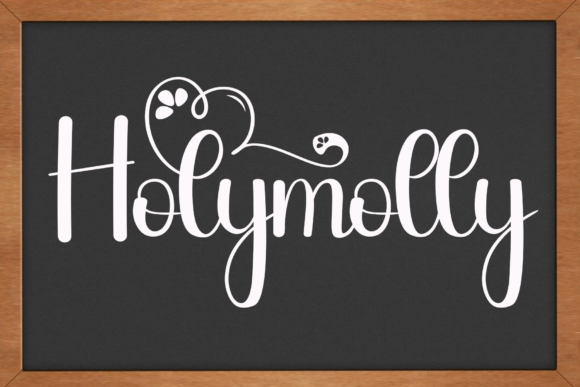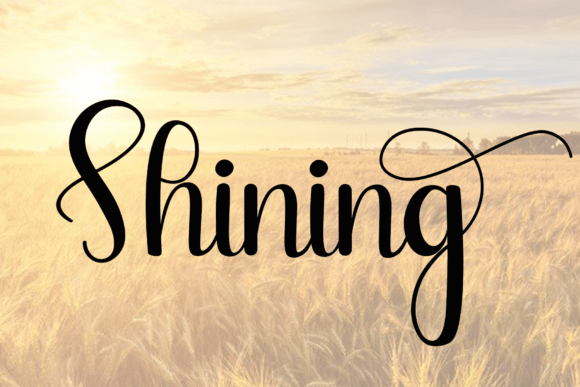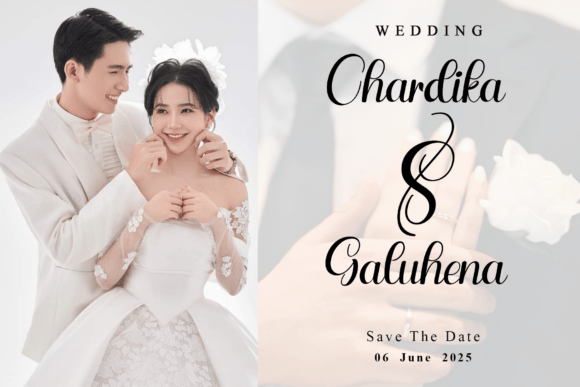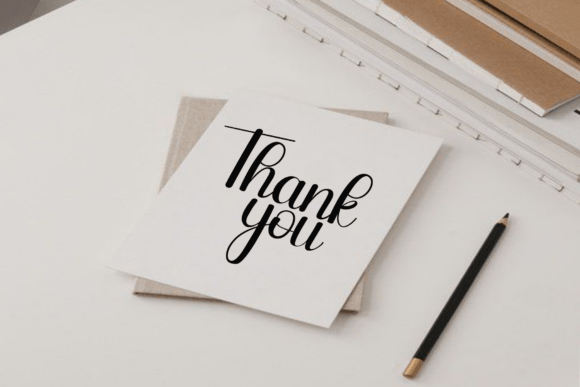
Introduction to Mylare Font
Have you ever been working on a creative project and wished you had the perfect font to bring your vision to life? That moment of frustration is a thing of the past, thanks to the introduction of the stunning Mylare Font. This beautiful, cursive handwritten font exudes a contemporary atmosphere and impeccable form, making it a timeless classic in the world of typography.
Key Features of Mylare Font
- High-quality design: Mylare Font is designed with precision and attention to detail, making it a valuable resource for any creative project.
- Transparent background: Mylare Font features a transparent background, allowing for seamless integration with any design element.
- High-resolution design: Mylare Font is designed at a high resolution, ensuring that it looks crisp and clear even at large sizes.
- Unique characteristics: Mylare Font features a unique blend of modern and vintage elements, making it a standout choice for designers looking to add some personality to their work.
- Perfect for design resources: Mylare Font is an excellent addition to any designer’s toolkit, providing a high-quality design element that can be used in a variety of creative projects.
Honest Review: Mylare Font
As a designer, I’m always on the lookout for high-quality design resources that can elevate my creative projects. Recently, I stumbled upon the Mylare Font, and I’m excited to share my honest review with you.
- ✨ High-quality typography: Mylare Font boasts a clean and modern design that’s perfect for digital projects.
- ✨ Versatile: This font is suitable for a wide range of creative projects, from branding to web design.
- ⚠️ Limited character set: The Mylare Font only includes a basic set of characters, which may not be sufficient for complex projects.
- ⚠️ No transparent background option: If you need a font with a transparent background, you might be out of luck with Mylare.
Overall, I’m impressed with the Mylare Font’s potential. While it has some limitations, its high-quality design and versatility make it a valuable design resource. If you’re looking for a free font to spice up your creative projects, I’d definitely recommend giving Mylare a try.
Tips for Getting the Most Out of Mylare Font
Use Mylare Font in conjunction with other design resources to create a cohesive and professional design. Experiment with different font sizes, colors, and styles to find the perfect combination for your creative project. Consider using Mylare Font for titles, headings, and body text to create a visually appealing design.
Mylare Font is perfect for use in a variety of creative projects, including digital design, print design, and branding. It is also ideal for use in educational materials, presentations, and marketing materials. With its high-quality design and transparent background, Mylare Font is a valuable resource for designers and non-designers alike.